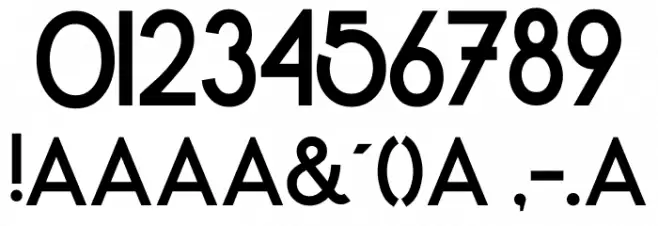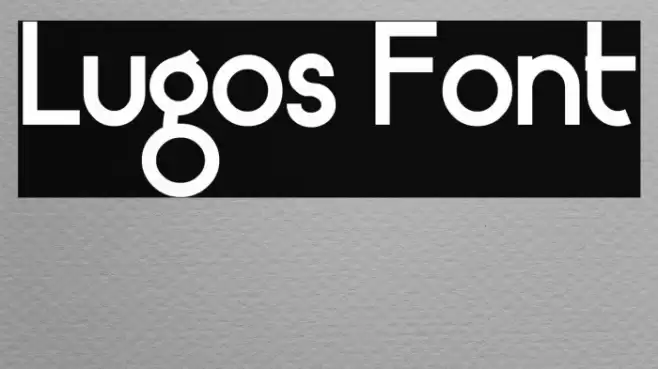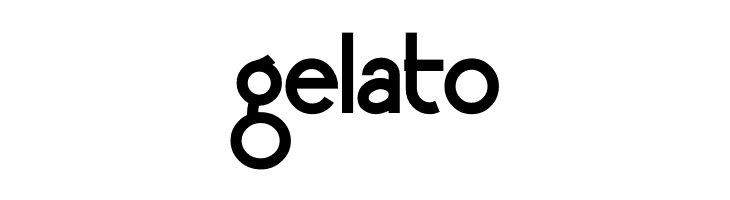
Lugos Font
Lugos Description
This font features a bold and modern sans-serif style with clean lines and geometric shapes. The uppercase letters are uniform in height, creating a strong and cohesive appearance. The lowercase letters maintain a similar geometric structure, offering a harmonious balance between the two cases. The numbers are clear and legible, with a consistent stroke width that matches the letters. Special characters are designed to complement the overall aesthetic, ensuring versatility across various applications. The font's simplicity and clarity make it suitable for a wide range of design projects, from digital to print.
A bold, modern sans-serif font with geometric shapes and clean lines.
- Proposed Projects: Ideal for branding, advertising, digital media, and editorial design.
- Category: Sans-Serif
- Use Case: Headlines, Logos, Branding